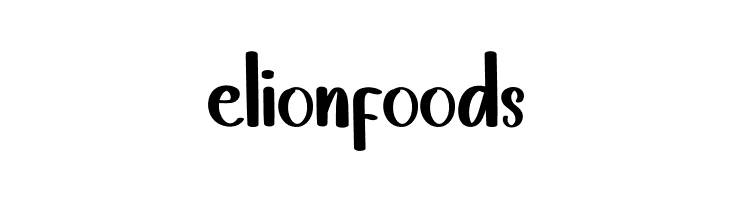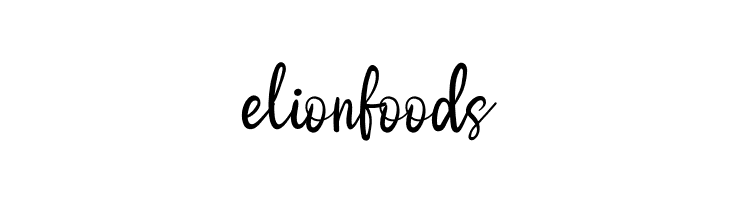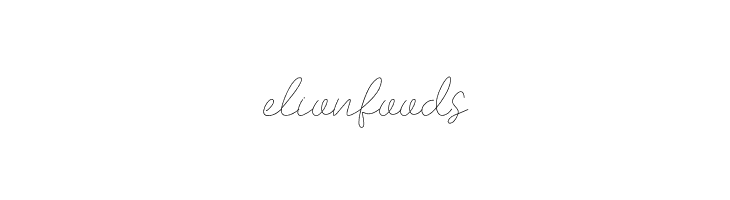
A playful, hand-drawn sans-serif with rounded, informal shapes.
Casual, handwritten script with light, fluid strokes.
Bold, cursive script with a handwritten, dynamic feel.
Decorative script font with playful loops and high contrast.
Expressive, casual handwritten script with tall, loose letterforms.
Elegant, thin handwritten script resembling a personal signature.
A whimsical, handwritten script with tall, narrow, and flowing letterforms.
Expressive handwritten script with flowing, organic strokes.